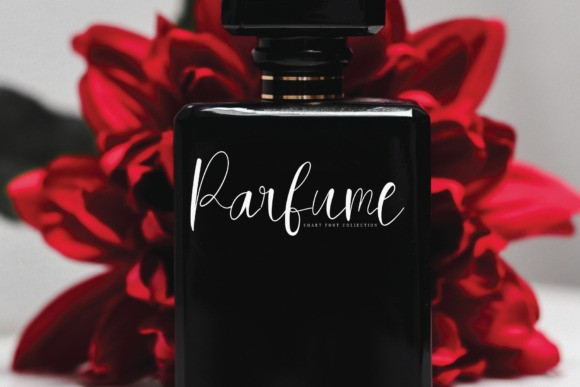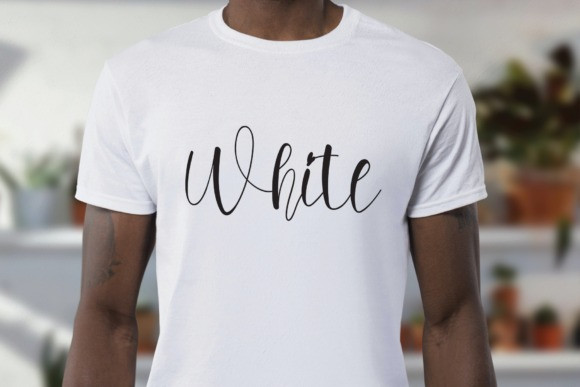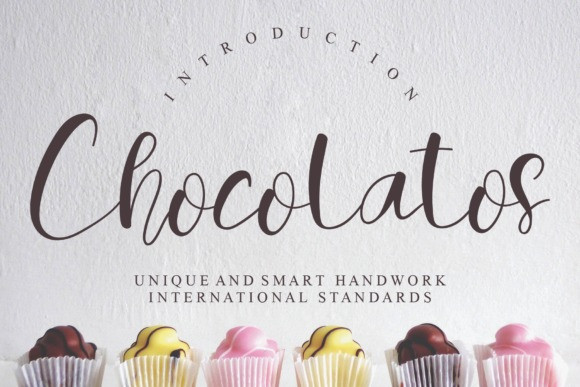
Chocolatos Calligraphy Font
Chocolatos is a slim and sleek handwritten font. With its cursive style and nicely rounded characters, this typeface is the best choice for delicate projects such as wedding invitations, birthday cards, letters, or anything alike!